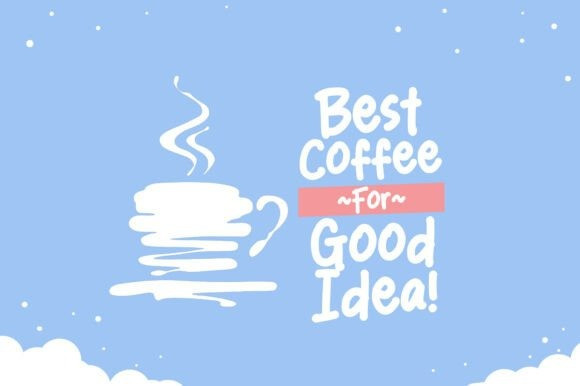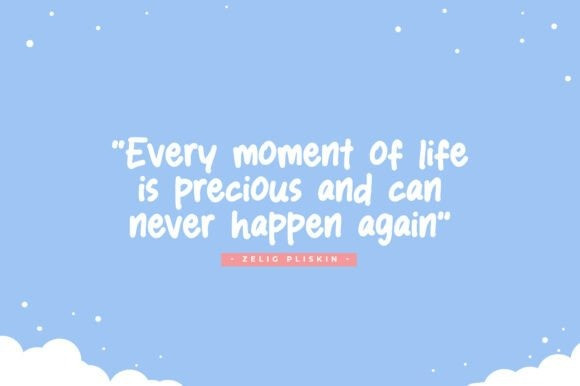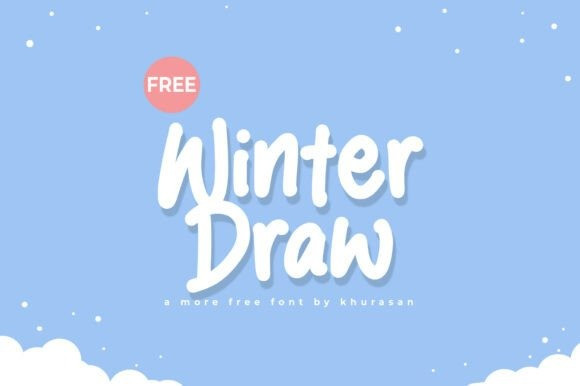
Winter Draw Font
Winter Draw Font a brush-style handwritten typeface that balances elegance with a casual, hand-crafted feel.The Winter Draw typeface features fluid, slightly textured strokes that mimic the natural movement of a marker on paper, making it an exceptional choice for seasonal branding, holiday greeting cards, and cozy lifestyle photography overlays.
Because of its approachable yet stylish silhouette, the Winter Draw font is perfect for creating intimate social media content, DIY craft labels, or winter-themed event invitations.
Pair the Winter Draw typeface with clean, minimalist sans-serif fonts to allow its expressive character to truly stand out. Whether you are designing a logo for a boutique winter shop or adding a personal touch to your digital planner, this font brings a warm, human element to the coldest time of year.